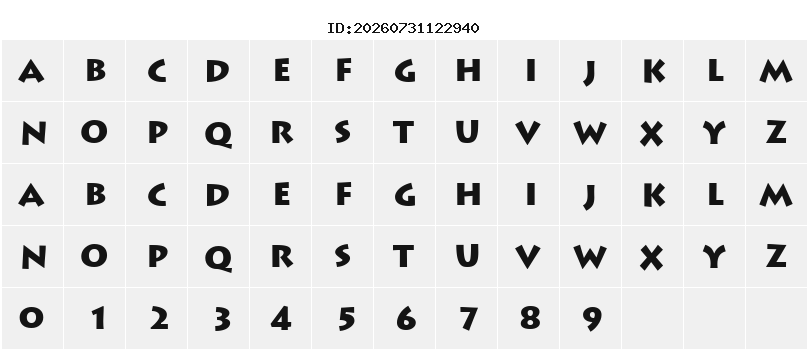
Liddie Black.ttf is a modern, elegant sans-serif font designed for ultimate readability and visual harmony. Perfect for branding, headlines, web design, and print materials.